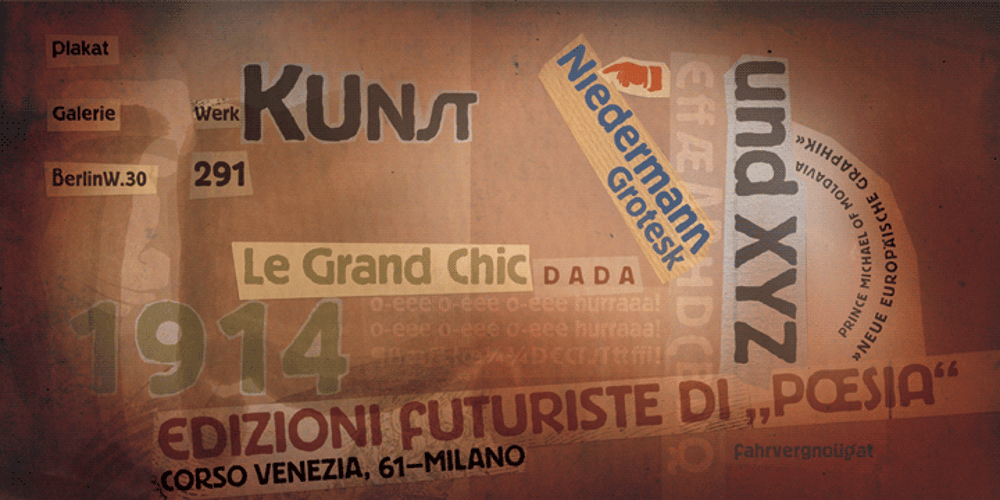
Niedermann Grotesk Font Family was designed by Steve Mehallo and published by steve mehallo. Niedermann Grotesk contains 1 styles and family package options. With the printing of the Futurist poem “Zang Tumb Tuuum” in 1914, modern art had taken a typographic twist: “words in freedom” (parole in libertà) were now a major part of the art world. The avant garde followed suit. Niedermann Grotesk is based on the everyday type that appeared in early modernist collages, journals and manifestos. It is a peculiar style of lettering—which was originally inspired by the Sachplakat (object poster) work of Lucian Bernhard—and adapted for hot metal in 1908 by Heinz Hoffmann. 100 years ago, the style became a workhorse of the German printing industry. Niedermann Grotesk is an updated variant, referencing the original poster art, each letter carefully drawn with an old brush. Bumpy, bold and blunt—with a suite of alternate characters and a few dingbats—Niedermann Grotesk is perfect for advertising, packaging, poetry, art, protests and retro homage.